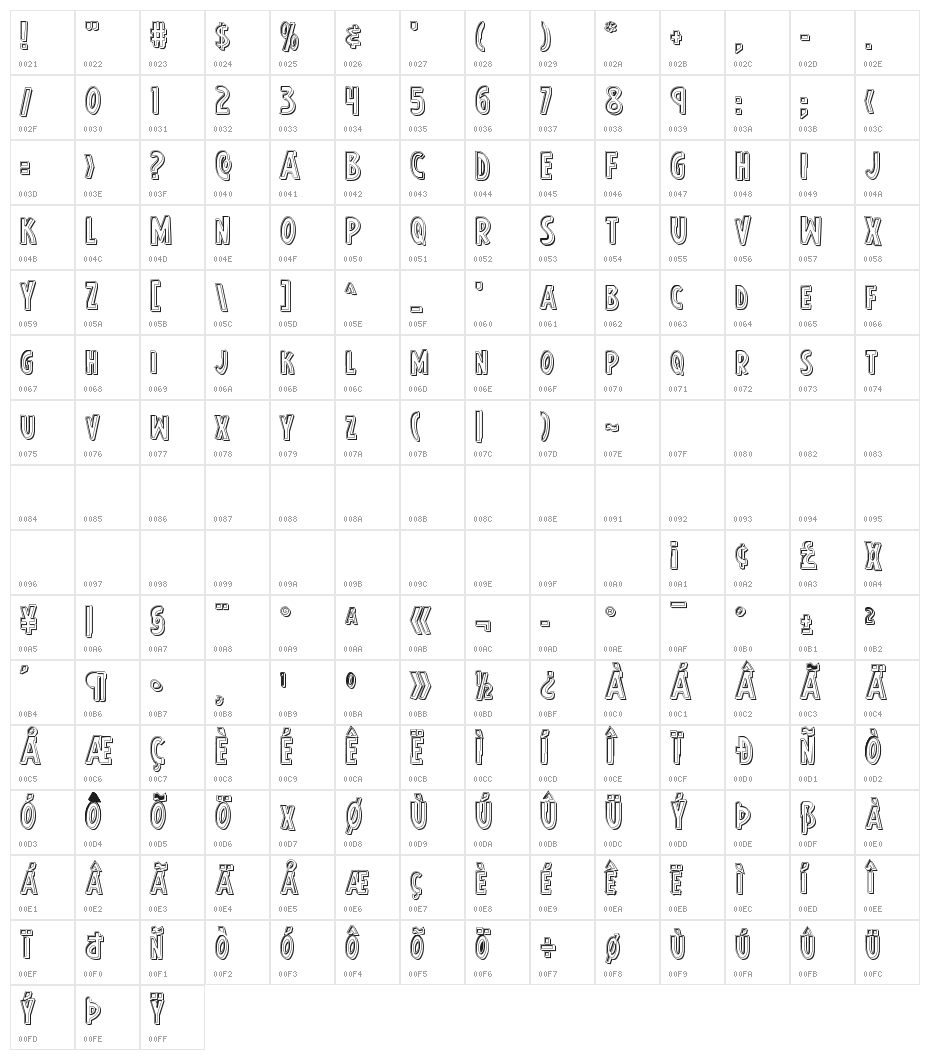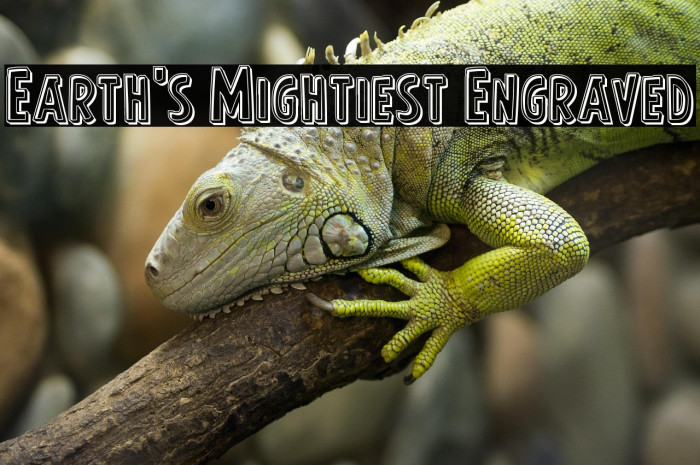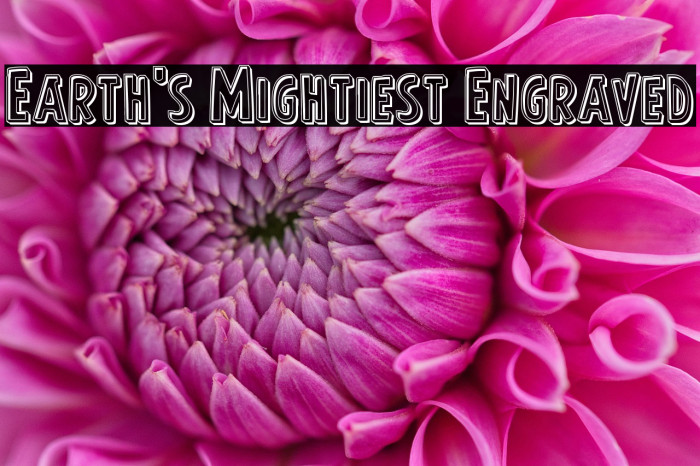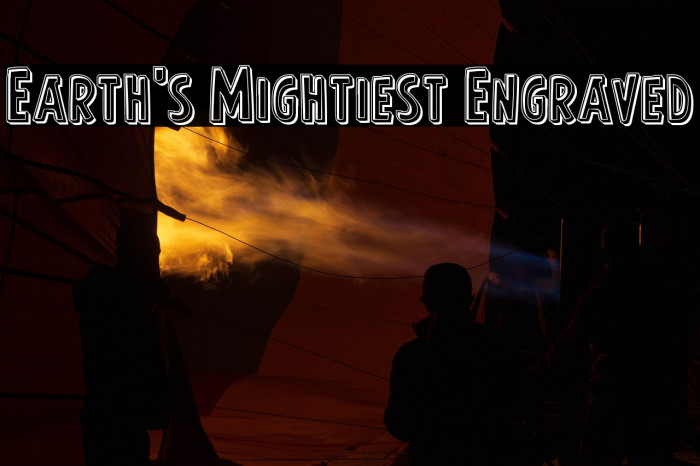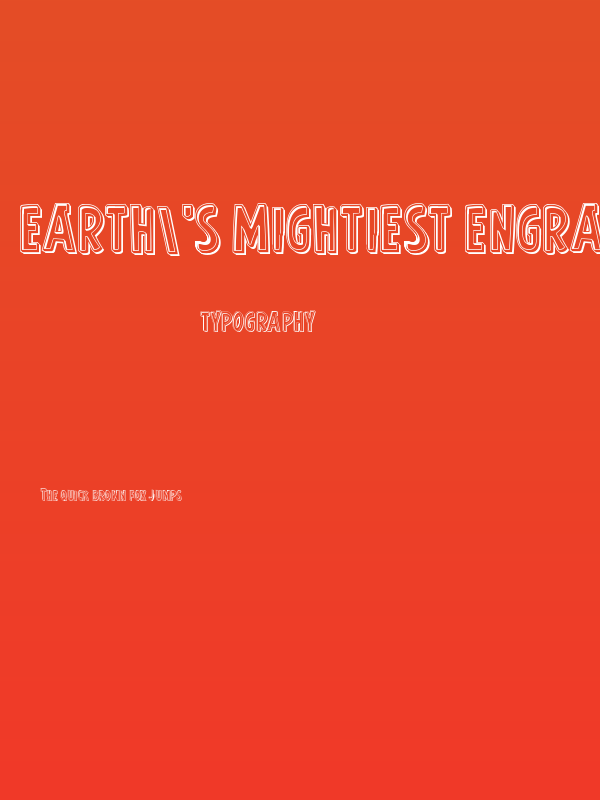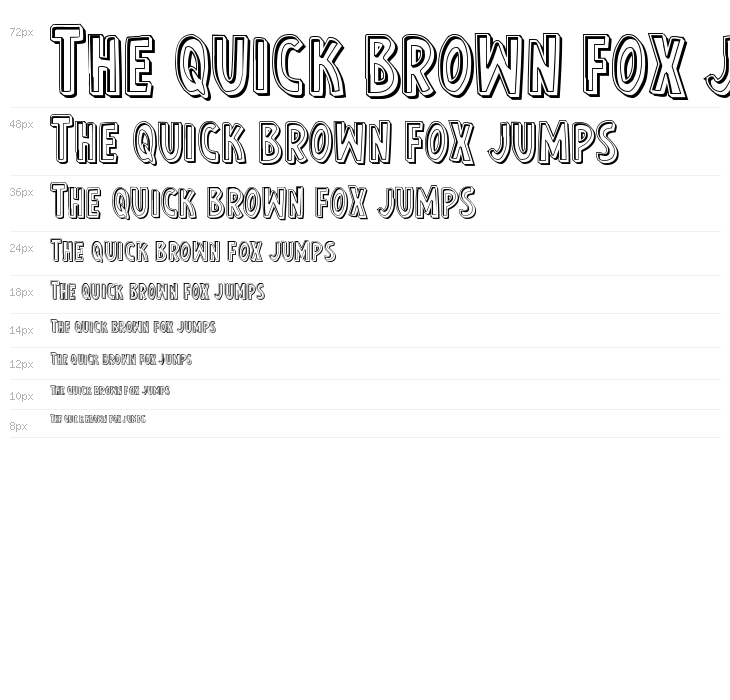
Earth's Mightiest Engraved Font
Earth's Mightiest Engraved Description
This font features a bold, engraved style with a strong, impactful presence. The characters are outlined with a thick, black border, giving them a three-dimensional appearance. The inner lines are slightly thinner, creating a contrast that enhances readability. Each letter and number is crafted with precision, maintaining a consistent width throughout. The font exudes a modern and dynamic feel, making it suitable for attention-grabbing designs. Its decorative nature is ideal for projects that require a bold statement, such as posters, banners, or logos. The spacing between characters is normal, ensuring clarity and legibility even at smaller sizes.
| Proposed Projects | Ideal for posters, banners, logos, and any design needing a bold statement. |